Although free fonts are abundant on the internet, not all fonts are equally well suited for professional uses. We present ten free script fonts by Google which will wow you.
Script fonts have been around as a popular design feature for quite some time. Some cursive fonts are reminiscent of the art of calligraphy whereas others mimic a person’s handwriting. Most script fonts have an unmistakable look and are therefore ideal to add a personal touch to design projects. We present ten hot script fonts by Google which you can download and use for free.
1 Delius, the handwriting font
Delius is a comic book lettering typeface whose flow imitates the movements of handwriting. A big round marker was used for Delius’s stroke and style. The upright font has relatively large x-heights to assure good legibility also in small font sizes. By the way, Delius has a sister named Delius Swash Caps with slightly more ornate cap shapes.
2 Fredericka the Great, the classic font
Fredericka the Great is a fancy sketch font based on a classic serif typeface. Its deliberately inaccurate strokes combined with the shading are reminiscent of hand-drawn sketches. Designed by Tart Workshop, Fredericka the Great marries neoclassical elegance with unruly creativity.
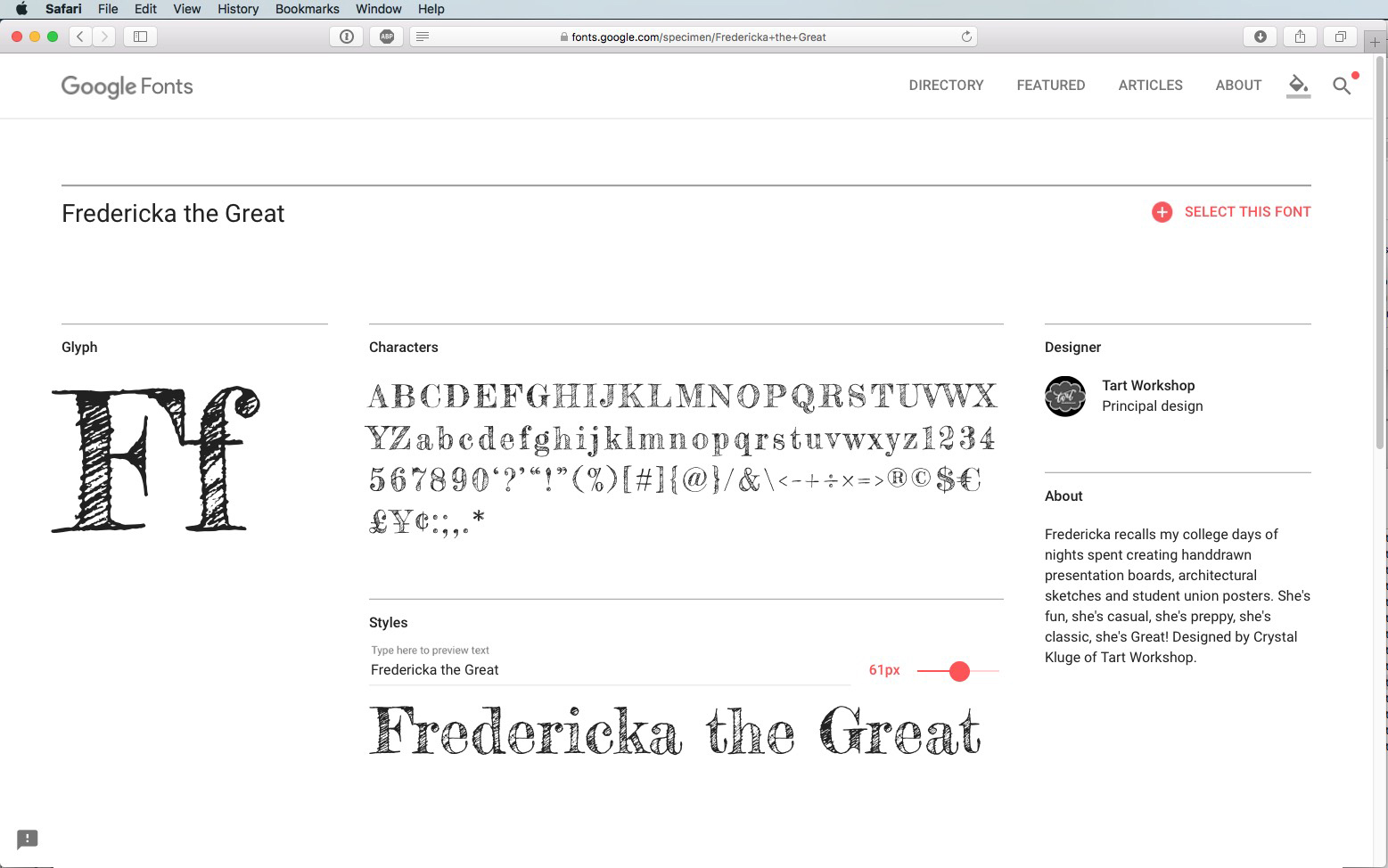
3 Leckerli One, the fat font
Leckerli One, designed by Gesine Todt, is a fat cursive script that is easily legible despite the thick lines. Its inspires with irregular brush shapes and cheerful loops.
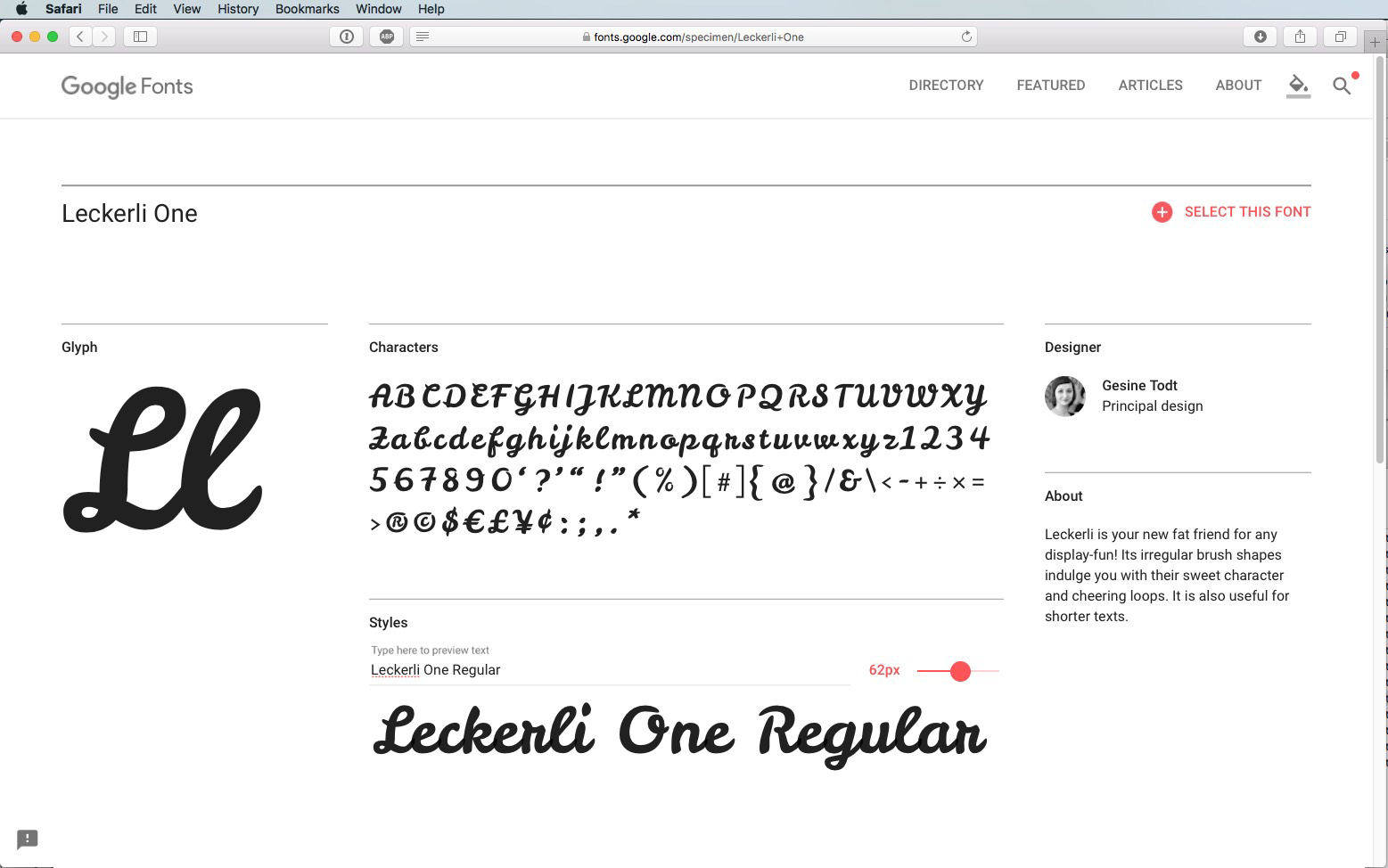
4 Rochester, the Art Deco font
Inspired by the Art Deco era, the designer of Rochester has created an upright handwritten font with stylish calligraphic forms that take you back in time.
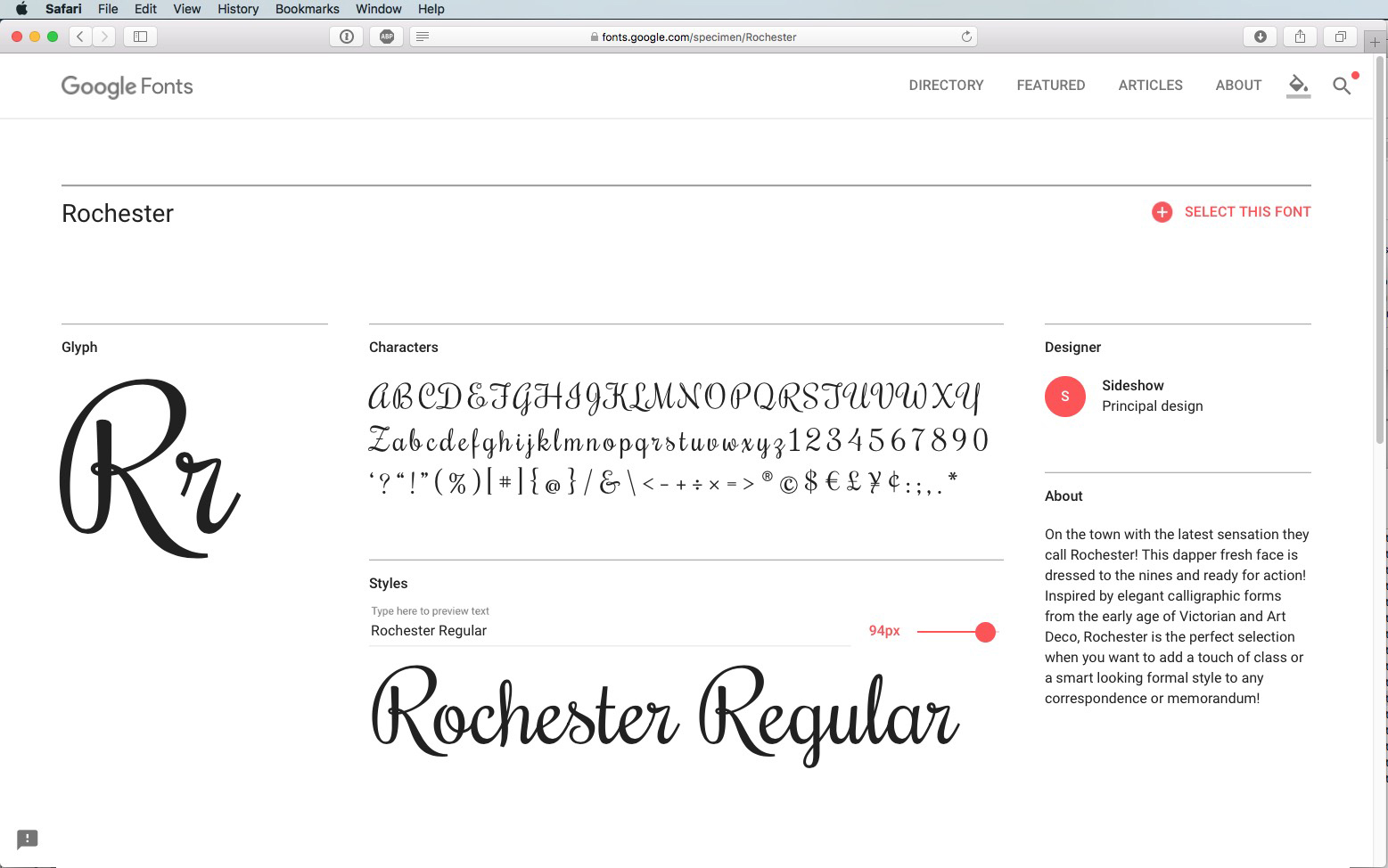
5 Stalemate, the carefree font
Stalemate by Jim Lyles is a calligraphy font that makes a bold statement in any design project. The x-heights are relatively small compared to the caps. Combined with delicate lines and curves, this does not add to the font’s legibility in small sizes. However, Stalemate is a great choice for presentations or decorative elements and exudes a sense of confidence with its vintage flair.
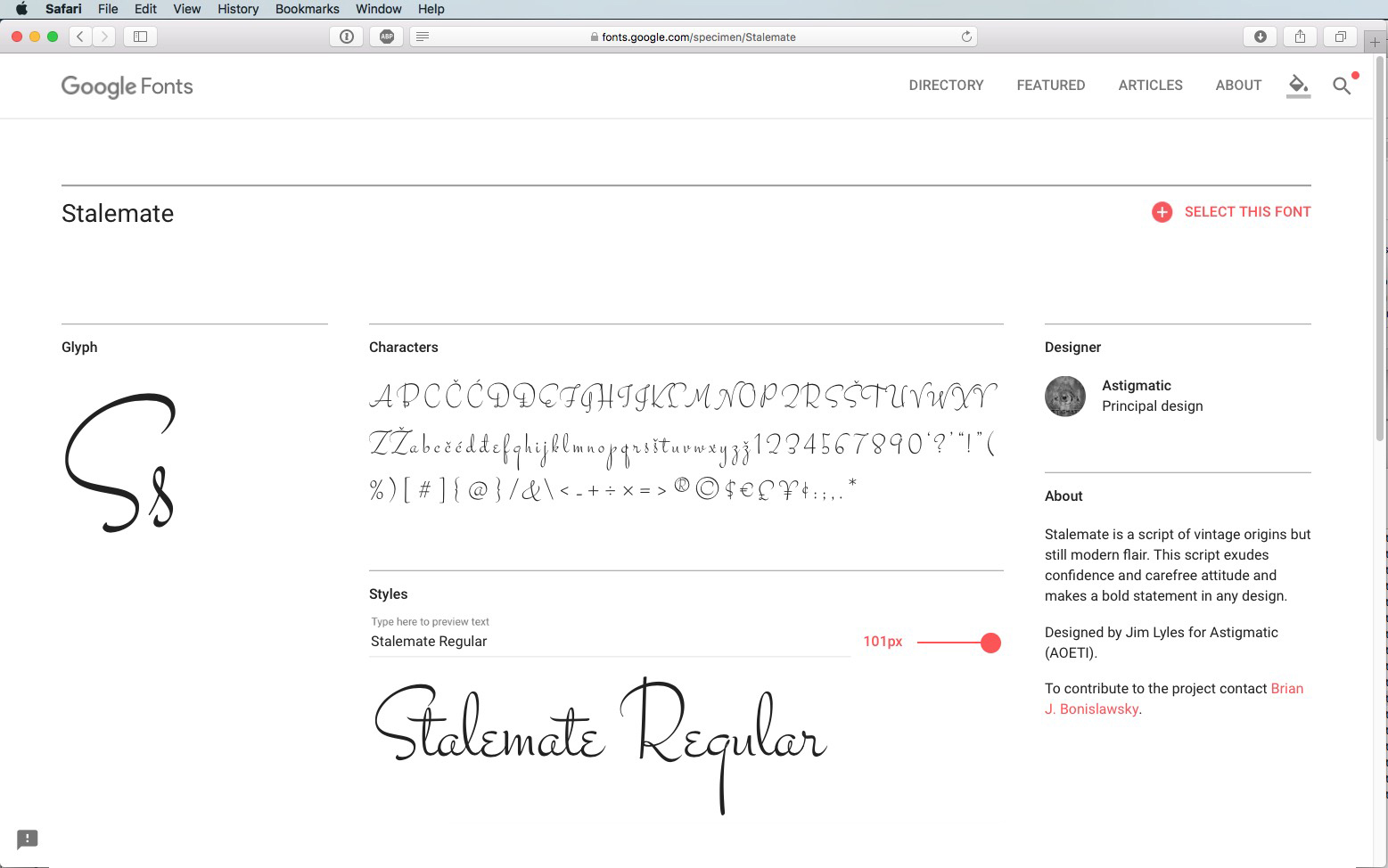
6 Yellowtail, the old school font
Yellowtail has a strong brush stroke and a unique character. The “e” looks a bit out of place in the otherwise harmonic typeface. But once you have got used to it and don’t mind manually adjusting the distance between certain letters, Yellowtail is a good choice to spruce up your design projects.
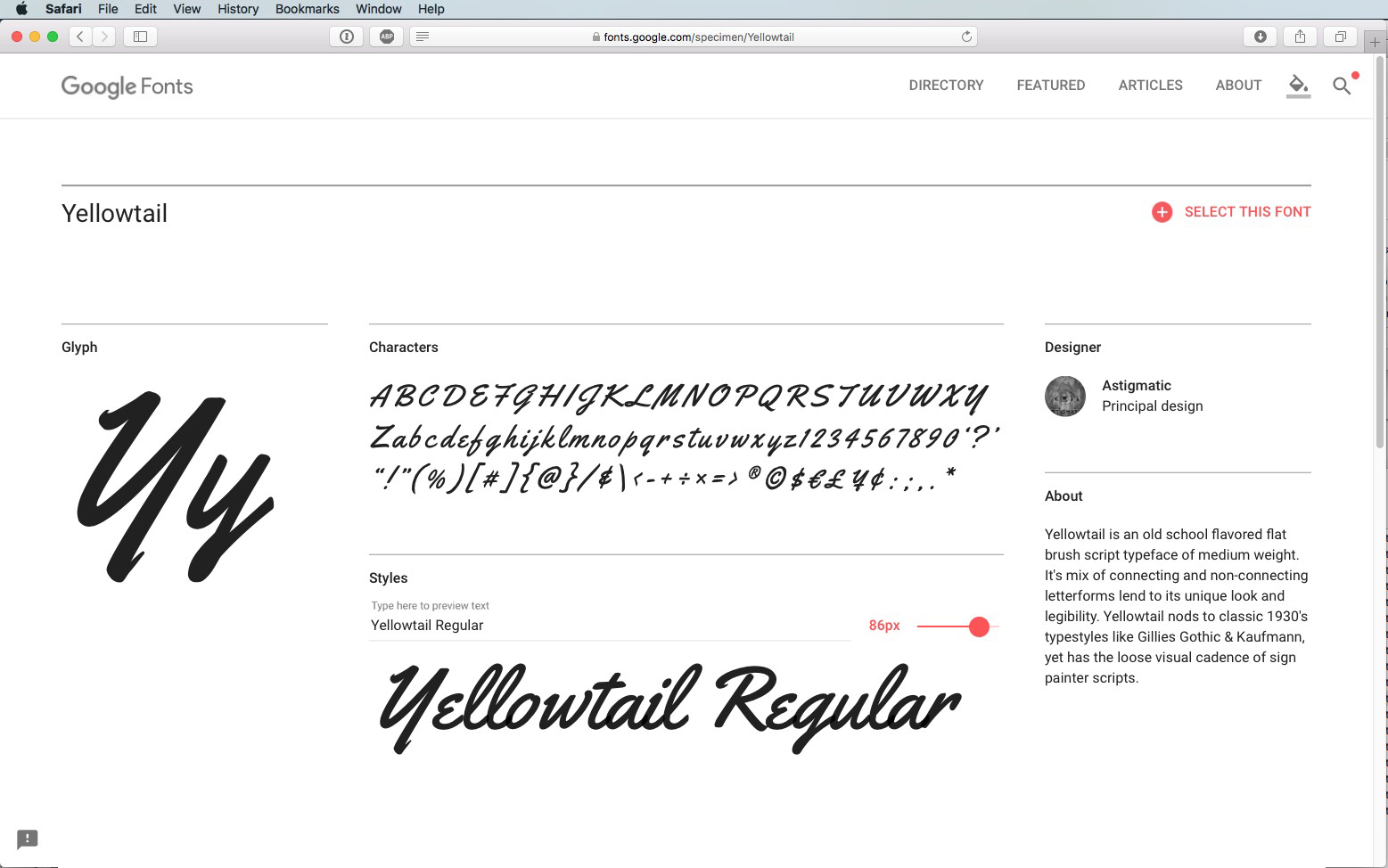
7 Dancing Script, the lively font
Dancing Script is one of the few scripts available in bold and regular font weight. It owes its name to the bouncing effect of its letters without a consistent baseline. The capitals descend slightly and the lower-case letters seem to “dance” on the baseline. Also, the x-height of the lower-case letters changes size – just enough to create a lively bouncing effect but not too much as to be distracting.
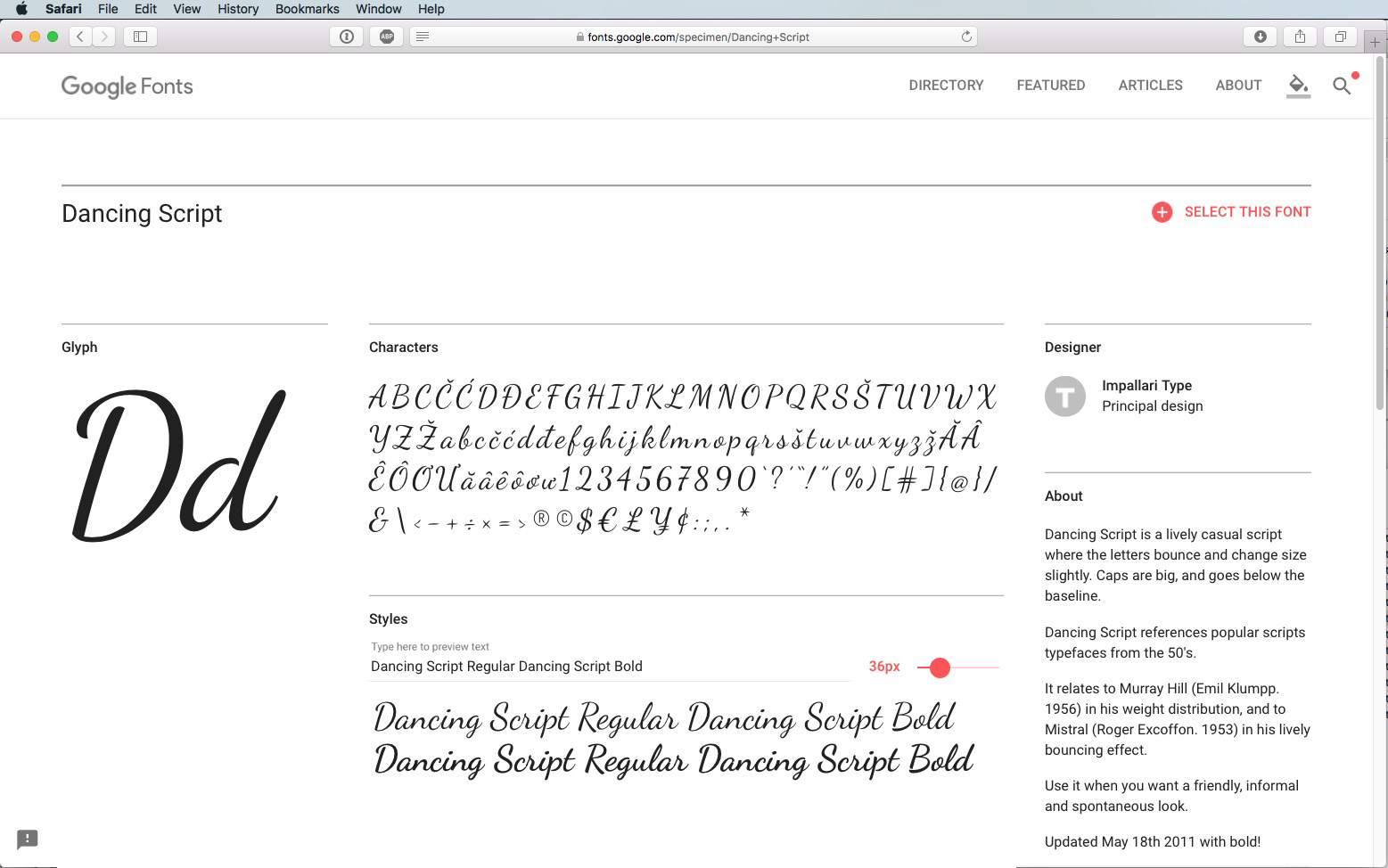
8 Alex Brush, a child of the 50s
Alex Brush is a beautifully flowing brush font that has been around for some time. It includes some whimsical details, has short ascenders and descenders to allow good legibility also in small sizes. It is a versatile, dynamic font which is ideal for a wide range of applications.
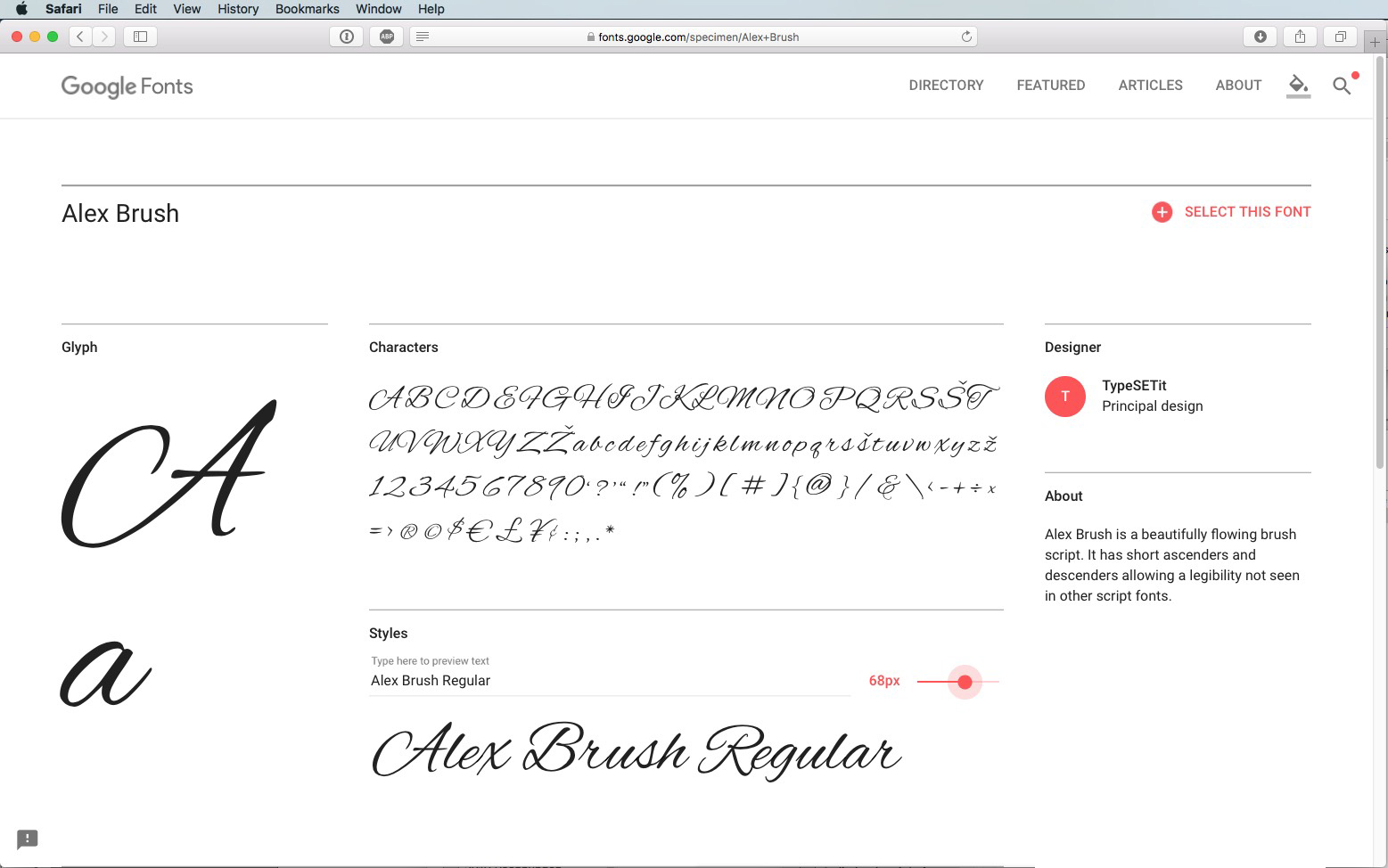
9 Cedarville Cursive, the authentic font
Cedarville Cursive by Kimberley Geswein is a perky handwriting font that has a spidery look and inspires with its edgy style and irregular curves. Whether you can nail the desired effect with this font largely depends on the letters used. Some upper-case letters don’t blend in harmonically with the rest of the font despite all efforts, whereas others make a good impression and are easily legible.
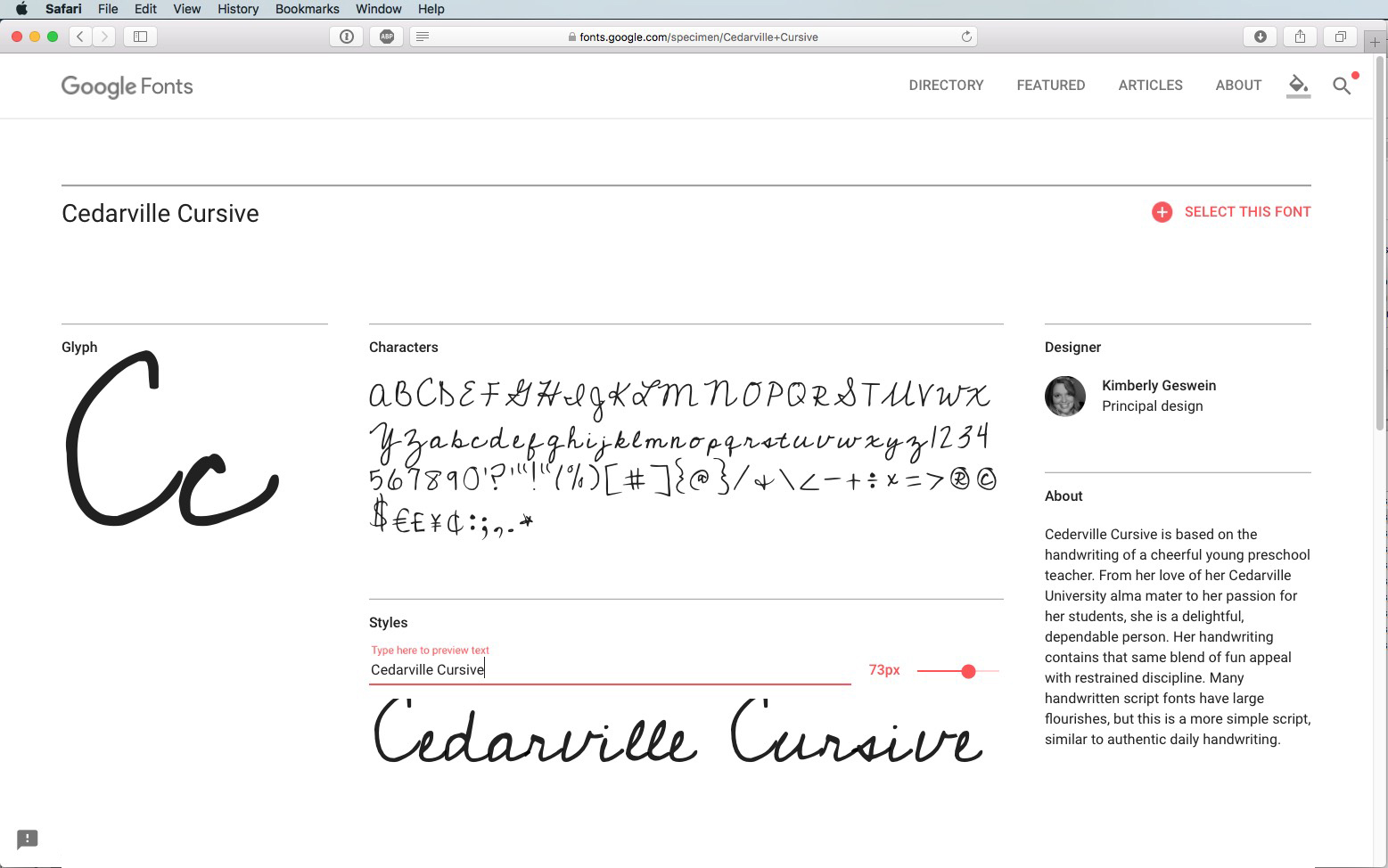
10 Clicker
Clicker has a classy drawing pen character with little variations in line width. Elegant yet bouncy, the script has a lightweight appearance of distinguished restraint – a good choice for adding a personal touch to elegant design projects.